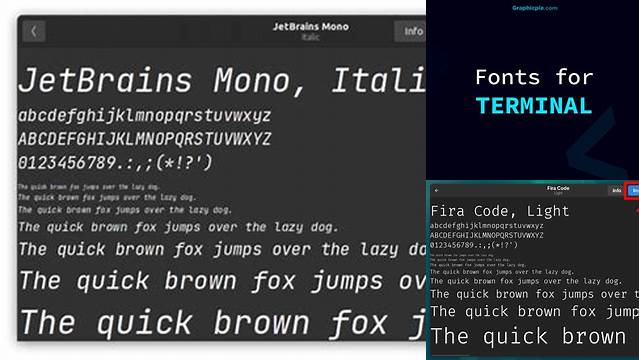
Best Terminal Fonts: Top Picks For Coders On Reddit
Choosing the best fonts for terminal can significantly impact your coding experience. A well-chosen font can improve readability, reduce eye strain, and even boost your productivity. Guys, let's dive into the world of terminal fonts and explore some of the top contenders, considering factors like clarity, aesthetics, and personal preference.
Why Font Choice Matters in Terminal
When it comes to coding, the terminal is your command center. Staring at lines of code for hours can be taxing on your eyes, so selecting the best fonts for terminal is not just about aesthetics; it's about ergonomics and efficiency. A good terminal font should be monospaced, meaning each character occupies the same horizontal space. This is crucial for code alignment and readability. Think about it β consistent spacing helps you quickly scan code blocks, identify errors, and understand the structure at a glance. Moreover, different fonts have distinct personalities. Some exude a professional, no-nonsense vibe, while others offer a more relaxed and playful feel. The font you choose can subtly influence your mood and focus while you work. We'll explore a range of options, discussing the unique characteristics of various typefaces and how they cater to different preferences and coding styles. Selecting the best fonts for terminal involves balancing legibility with personal taste to create an environment where you can code comfortably and efficiently. So, letβs get into the specifics and find the perfect font that resonates with your coding style.
Key Characteristics of a Good Terminal Font
To find the best fonts for terminal, you need to understand the key characteristics that make a font suitable for this specific environment. First and foremost, monospace is non-negotiable. A monospaced font ensures that each character, whether it's an 'i' or a 'W', occupies the same width. This uniformity is essential for maintaining the visual alignment of code, making it easier to spot errors and understand the structure. Think about how frustrating it would be if your indentation kept shifting because the spaces didn't align properly! Secondly, legibility is paramount. The font should be clear and easy to read, even at small sizes. This means that characters should be well-defined and distinguishable from one another. For example, the letters 'l', 'I', and the number '1' should have clear differences to avoid confusion. A font that looks stylish but strains your eyes after a few hours of coding isn't a practical choice. Thirdly, character coverage is an important consideration. The font should support a wide range of characters, including special symbols and glyphs used in programming languages and terminal commands. Missing characters can lead to frustrating display issues and hinder your workflow. Finally, aesthetics play a role, albeit a subjective one. While functionality is key, you also want a font that you enjoy looking at. The font should align with your personal taste and create a comfortable coding environment. Some developers prefer a clean, minimalist look, while others prefer a more distinctive and stylized typeface. Balancing these characteristics β monospace, legibility, character coverage, and aesthetics β will guide you in selecting the best fonts for terminal that meets your specific needs.
Top Font Recommendations for Terminal
Now, let's explore some of the top font recommendations that often come up in discussions about the best fonts for terminal. These fonts have gained popularity among developers for their readability, aesthetics, and overall suitability for coding environments. First up is Fira Code. Fira Code is a widely praised font that includes programming ligatures. Ligatures combine certain character combinations into single, more visually appealing glyphs. For example, '->' might be displayed as a single arrow symbol. This can make code easier to read and visually parse. The font itself is clean and modern, with excellent legibility. Next, we have JetBrains Mono. Created by the makers of popular IDEs like IntelliJ IDEA, JetBrains Mono is specifically designed for coding. It prioritizes clarity and minimizes ambiguity between characters. The font has a slightly taller x-height, which enhances readability, especially at smaller sizes. Then there's Consolas, a long-time favorite included with Microsoft Windows. Consolas is a clean, monospaced font known for its excellent legibility and consistent character rendering. It's a solid choice if you prefer a classic, no-frills option. Source Code Pro, developed by Adobe, is another highly regarded font in the coding community. It's a clean, well-balanced typeface that works well in a variety of coding environments. Source Code Pro is available in a range of weights, allowing you to customize the appearance to your preference. Finally, Hack is a free and open-source font designed specifically for source code. It features a distinctive, geometric design and clear differentiation between characters. Hack aims to provide a consistent and legible coding experience across different platforms and screen resolutions. Each of these fonts brings something unique to the table, and the best fonts for terminal for you will ultimately depend on your individual preferences and priorities.
Fira Code: The Font with Ligatures
When discussing the best fonts for terminal, Fira Code often takes the spotlight, and for good reason. Its standout feature is the inclusion of programming ligatures, which elevate the coding experience to a new level. Ligatures are special glyphs that combine two or more characters into a single, more visually pleasing symbol. In the context of coding, this means that common character combinations like !=
, >=
, ->
, and ===
are rendered as single, connected glyphs instead of separate characters. This not only makes the code look cleaner and more elegant but also enhances readability by making these operators instantly recognizable. Think of it as a visual shortcut that reduces mental parsing. Beyond ligatures, Fira Code boasts a clean and modern design that's easy on the eyes. Its characters are well-defined and consistently rendered, ensuring legibility even at small font sizes. The font strikes a good balance between a technical and approachable aesthetic, making it suitable for a wide range of coding styles and preferences. Fira Code's popularity is a testament to its thoughtful design and attention to detail. It addresses a common challenge in coding β the visual clutter of operators β by providing a more streamlined and intuitive representation. While ligatures might not be everyone's cup of tea, many developers find them to be a significant boost to their productivity and coding enjoyment. If you're looking for a font that combines visual appeal with enhanced readability, Fira Code is definitely worth a try. Its unique ligature feature sets it apart in the realm of best fonts for terminal, making it a top choice for many coders.
JetBrains Mono: Crafted for Developers
In the quest for the best fonts for terminal, JetBrains Mono stands out as a typeface specifically crafted with developers in mind. Created by JetBrains, the company behind popular Integrated Development Environments (IDEs) like IntelliJ IDEA and PyCharm, this font is designed to address the unique challenges of reading and writing code. One of the key features of JetBrains Mono is its emphasis on clarity and legibility. The font has a slightly taller x-height, which refers to the height of lowercase letters, making them appear larger and easier to distinguish. This is particularly beneficial when working with small font sizes or spending long hours coding. The characters in JetBrains Mono are carefully designed to minimize ambiguity, ensuring that similar-looking characters like 'l', 'I', and '1' are easily differentiated. This reduces the risk of misreading code and making errors. Furthermore, JetBrains Mono incorporates subtle design choices that enhance the overall coding experience. Its distinct letterforms and balanced spacing contribute to a comfortable and efficient reading flow. The font also supports a wide range of programming ligatures, similar to Fira Code, which can further improve code readability by combining common character sequences into single glyphs. JetBrains Mono's dedication to developer needs is evident in every aspect of its design. It's a font that prioritizes functionality without sacrificing aesthetics, making it a strong contender for the best fonts for terminal. If you're seeking a typeface that's specifically optimized for coding, JetBrains Mono is definitely worth considering. Its thoughtful design and focus on legibility make it a valuable asset for any developer.
Consolas: A Classic Choice
Among the best fonts for terminal, Consolas holds a special place as a classic and reliable choice. Included with Microsoft Windows, Consolas has been a staple for developers for many years, known for its clean, monospaced design and excellent legibility. What makes Consolas stand out is its straightforward and no-frills approach. It doesn't try to be overly stylish or flashy; instead, it focuses on delivering a clear and consistent coding experience. The characters are well-formed and easy to distinguish, even at smaller font sizes, making it a comfortable font to use for extended periods. Consolas's consistent character rendering is another key advantage. Each character occupies the same width, ensuring proper alignment of code and preventing visual distractions. This is crucial for maintaining a clean and organized coding environment, where errors can be easily spotted and code structure is readily apparent. While Consolas might not have the programming ligatures or the specialized design of some newer fonts, its simplicity and reliability are its strengths. It's a font that you can trust to get the job done, without any surprises or compatibility issues. For developers who prefer a traditional and dependable option, Consolas remains a solid choice. Its long-standing popularity and proven track record make it a worthy contender in the realm of best fonts for terminal. If you're looking for a font that's both familiar and functional, Consolas is definitely worth considering.
Source Code Pro: A Versatile Option
When exploring the best fonts for terminal, Source Code Pro stands out as a versatile and highly regarded typeface developed by Adobe. This font is designed with coding in mind, offering a clean and balanced aesthetic that works well in a variety of programming environments. One of the key strengths of Source Code Pro is its excellent legibility. The characters are well-defined and clearly distinguishable, even at small font sizes, making it a comfortable choice for long coding sessions. The font also features a generous x-height, which further enhances readability by making lowercase letters appear larger and more prominent. Source Code Pro's design strikes a good balance between a technical and approachable feel. It's not overly stylized or distracting, but it also has a subtle elegance that makes it visually appealing. This versatility makes it suitable for a wide range of coding styles and preferences. Another notable feature of Source Code Pro is its availability in a range of weights, from ExtraLight to Black. This allows you to customize the appearance of the font to your liking, adjusting the thickness and boldness to suit your personal preference and screen resolution. Whether you prefer a light and airy typeface or a bolder and more assertive one, Source Code Pro offers the flexibility to adapt to your needs. Source Code Pro's well-rounded design and attention to detail make it a strong contender for the best fonts for terminal. Its versatility, legibility, and range of weights make it a valuable asset for any developer seeking a reliable and aesthetically pleasing coding font. If you're looking for a font that can adapt to your specific preferences and coding environment, Source Code Pro is definitely worth a try.
Hack: The Open Source Champion
In the realm of best fonts for terminal, Hack emerges as a notable open-source option designed specifically for source code. This font distinguishes itself with a clear focus on legibility and a distinctive geometric design, making it a popular choice among developers who value clarity and open-source principles. Hack's primary goal is to provide a consistent and readable coding experience across different platforms and screen resolutions. The font's characters are carefully crafted to minimize ambiguity and ensure that each glyph is easily distinguishable, even at small sizes. This is crucial for preventing misinterpretations and reducing eye strain during long coding sessions. The geometric design of Hack gives it a unique and modern look. Its clean lines and precise shapes contribute to a visually appealing aesthetic that's both technical and approachable. The font strikes a good balance between functionality and style, making it suitable for a wide range of coding environments and preferences. Being an open-source font, Hack offers the added benefit of being freely available and customizable. Developers can download, use, and even modify the font to suit their specific needs, fostering a sense of community and collaboration. This open nature also ensures that Hack is continuously evolving and improving, driven by the contributions of its users. Hack's commitment to legibility, its distinctive geometric design, and its open-source nature make it a compelling choice for the best fonts for terminal. If you're looking for a font that prioritizes clarity, embraces open-source principles, and offers a modern aesthetic, Hack is definitely worth considering. Its focus on developer needs and its community-driven development make it a valuable asset for any coder.
How to Install and Configure Terminal Fonts
Once you've chosen the best fonts for terminal for your needs, the next step is to install and configure it on your system. The process can vary slightly depending on your operating system, but the general steps are similar. On most systems, you'll start by downloading the font files. These typically come in .ttf
(TrueType Font) or .otf
(OpenType Font) formats. Once you have the font files, you'll need to install them on your system. On Windows, you can simply right-click on the font file and select "Install." On macOS, you can double-click the font file and then click the "Install Font" button in the Font Book application. On Linux, the installation process can vary depending on your distribution. You might need to copy the font files to a specific directory, such as /usr/share/fonts
or ~/.fonts
, and then update the font cache using a command like fc-cache -f -v
. After installing the font, you'll need to configure your terminal application to use it. Most terminal emulators have settings that allow you to specify the font family and size. Look for options related to "Appearance," "Font," or "Terminal." You'll typically see a list of available fonts on your system, and you can select the one you just installed. You can also adjust the font size to your preference. It's a good idea to experiment with different font sizes to find what works best for your eyes and screen resolution. Some terminal emulators also allow you to customize other font-related settings, such as antialiasing and hinting, which can affect the appearance of the font. By following these steps, you can easily install and configure your chosen best fonts for terminal and start enjoying a more comfortable and productive coding experience.
Conclusion: Finding Your Perfect Terminal Font
In conclusion, finding the best fonts for terminal is a personal journey that depends on your individual preferences and coding style. There's no single "best" font for everyone, but by considering the key characteristics of a good terminal font β monospace, legibility, character coverage, and aesthetics β you can narrow down your options and find a typeface that suits your needs. We've explored a range of top font recommendations, including Fira Code with its unique ligatures, JetBrains Mono designed specifically for developers, the classic and reliable Consolas, the versatile Source Code Pro, and the open-source champion Hack. Each of these fonts brings something unique to the table, and the best fonts for terminal for you will ultimately depend on your individual priorities. Remember to try out different fonts and experiment with font sizes and other settings to find what works best for your eyes and coding environment. The right font can significantly enhance your coding experience, reducing eye strain, improving readability, and even boosting your productivity. So, take the time to explore your options and discover the perfect terminal font that makes coding a joy. Happy coding, guys!